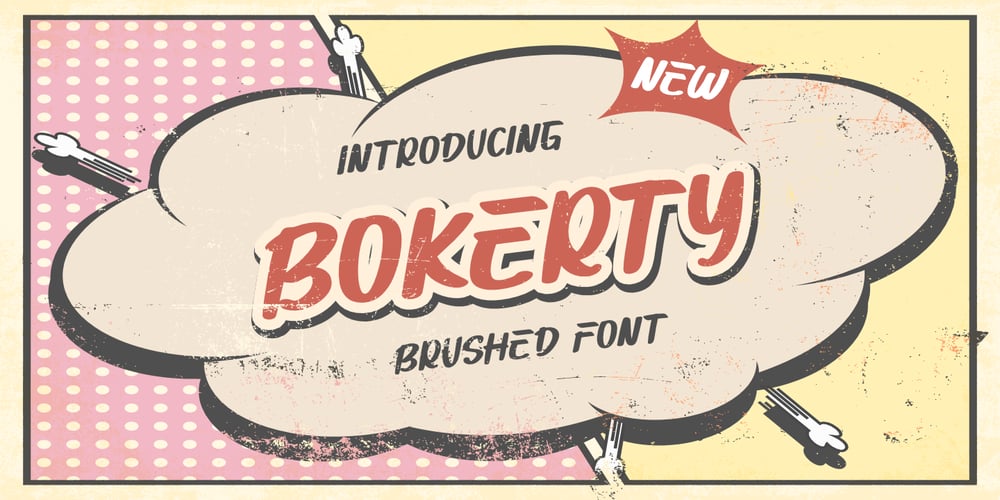
Bokerty Font Family was designed by Bayu Aji Fais Mursid and published by Bayuktx. Bokerty contains 1 styles and family package options. Hello,Thank you for visiting my products, we will give you the best choice.Bokerty a New Brushed Font, This font is made with a high premium quality level which you can use as flyers, quotes, posters, banners, packaging, merchandise, logotypes and much more.FEATURES :* Uppercase* Lowercase* Number* Punctuation* Multilingual* PUA Encode* OpentypeFILES INCLUDED :* Bokerty Thank you